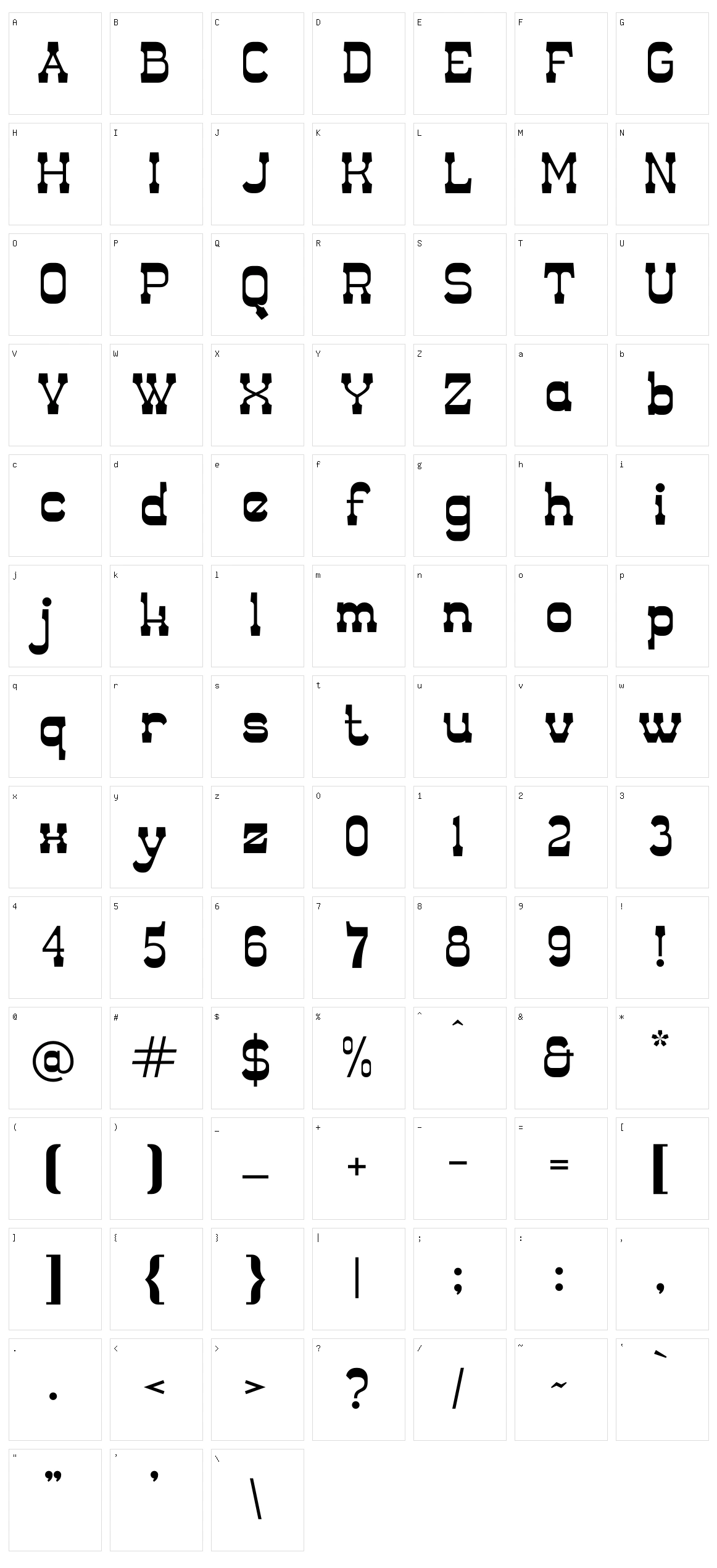
The free font Mayor Sheriv is carefully designed by Storytype Studio, showcasing a thoughtful balance of creativity and usability and falls under the Western font style. When you download the ZIP file, it contains only 21.22 KB of font files, making it lightweight and quick to download. Please review the license details below to understand permitted usage and distribution rights. If license information is not available, we recommend using this font for personal projects only or contacting the author directly for commercial usage permissions.